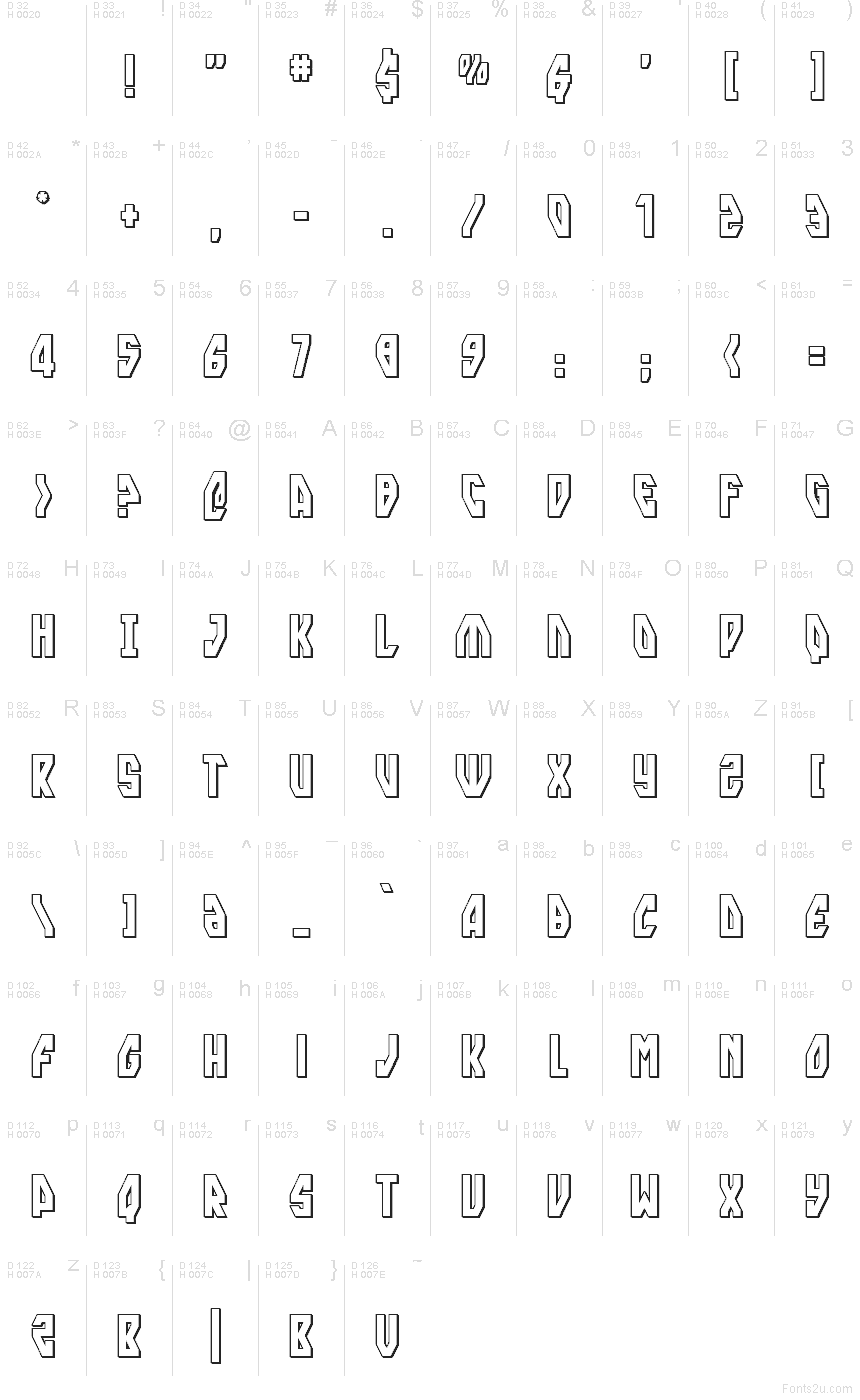
skyrange 3D
Skyrange 3D font by Daniel Zadorozny of Iconian Fonts is a free techno font with a crisp, beveled 3D look that feels cut from metal plating. Its sharp angles and tight, engineered rhythm give words a punchy, forward-thrusting momentum—like a spacecraft logo stamped onto a hull.
Using Skyrange 3D, you’ll get instant sci‑fi energy on game titles, esports branding, streaming overlays, tech posters, album covers, YouTube thumbnails, UI hero banners, and futuristic event flyers. Set it large so the inner depth reads cleanly, then pair this free font with a plain geometric sans for body copy to keep the layout fast and legible.